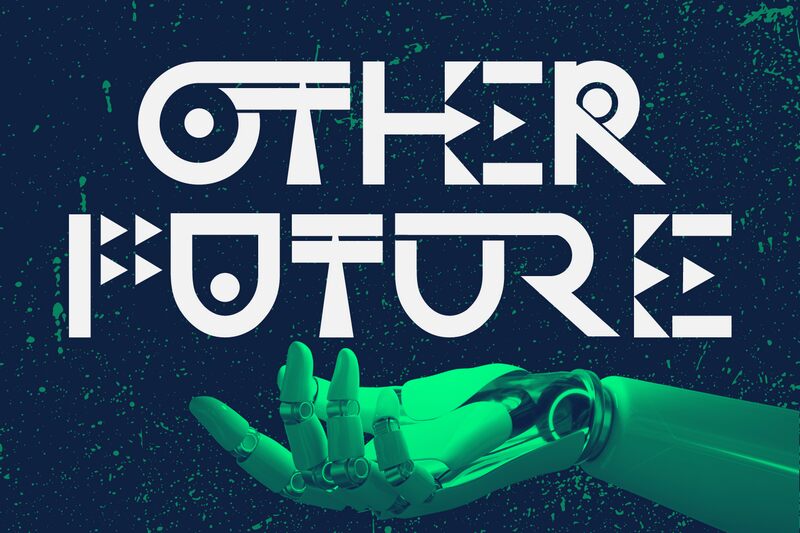
OTHER FUTURE DEMO Regular
Other Future font by 177Studio is a free display font clearly inspired by geometric shapes and symmetrical structures. With a blend of Avant-garde style and futuristic feel, this typeface comes to add unique experimental designs to your artistic projects.
For obvious purposes, many types of projects can use Other Future fonts such as movie posters, video games, technology-related projects, logo design or branding materials. In addition, it works well in devices interfaces (UI), web or mobile design, advertisements whether online or printed and invitations for events and parties.